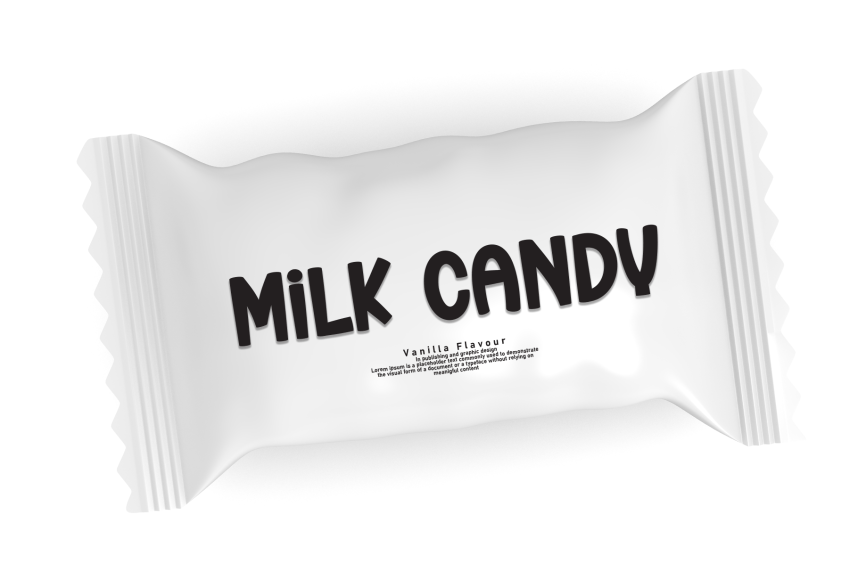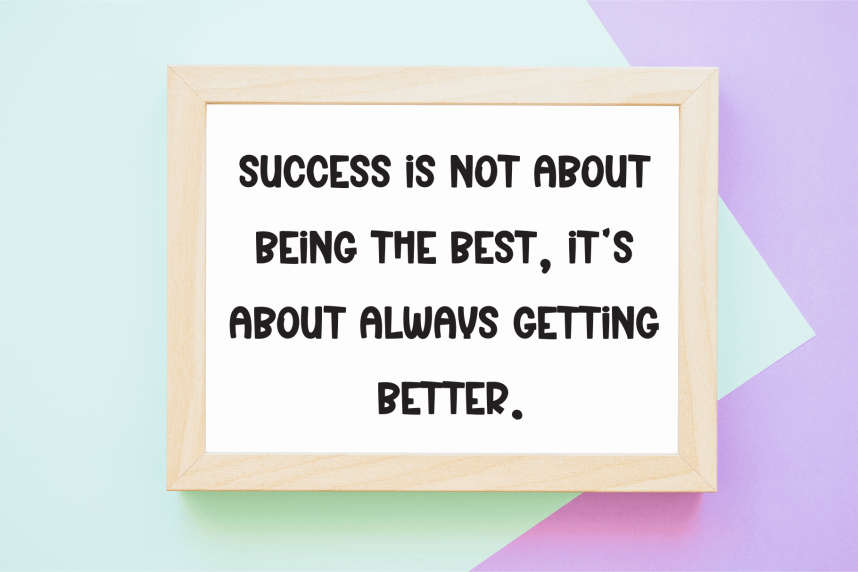
Christmas Minimalist Playful Font
Christmas Minimalist Playful Font, special creative products for you, our products will give you an extraordinary experience. the latest style letters are perfect for wall displays, wedding invitations, social media post logos, advertisements, product packaging, product designs, labels, photography, watermarks, invitations, stationery, and any project that requires taste handwriting.